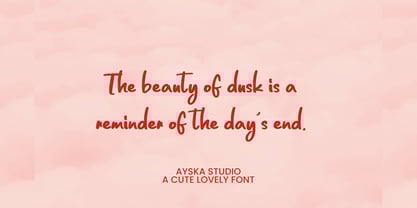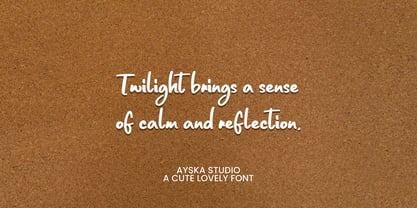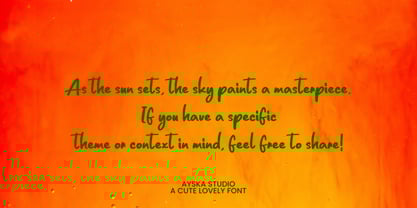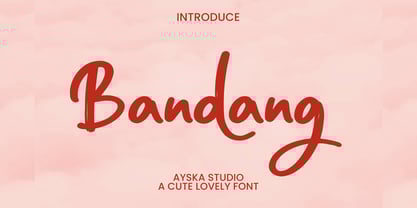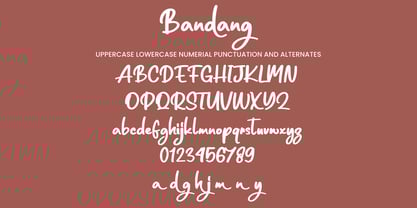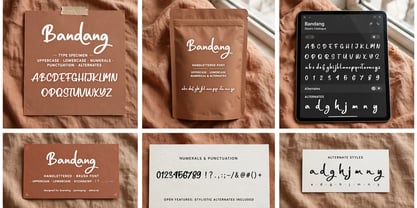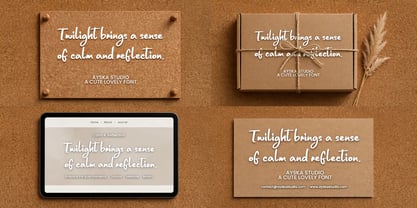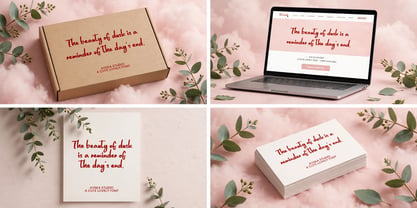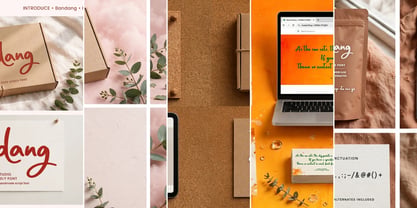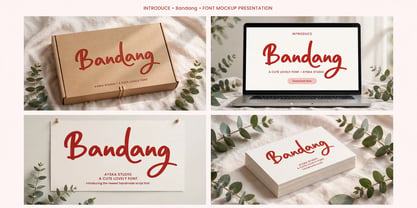
Bandang
by Ayska
The Bandang Font Family was designed by Dhoni Trihatmoko and published by Ayska. Bandang contains 1 styles. More about this family
Bandang, a cool and casual handwritten font. You can use this font in various projects - blog posts, digital planner, invitations, greeting cards, planners, photo albums, decorations and much more. Charming pencil texture handwritten font that captures the essence of warm, personal expression.
Designers: Dhoni Trihatmoko
Foundry: Ayska